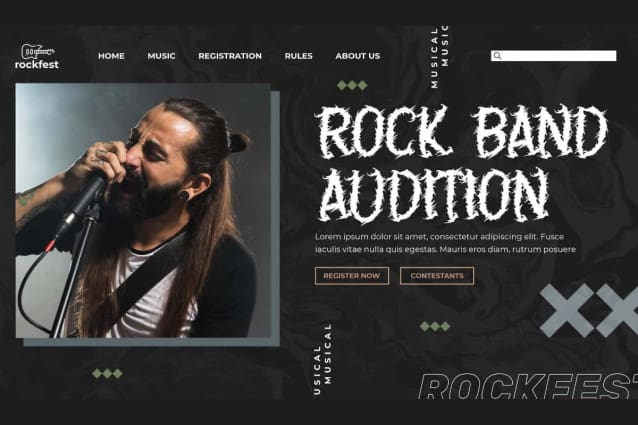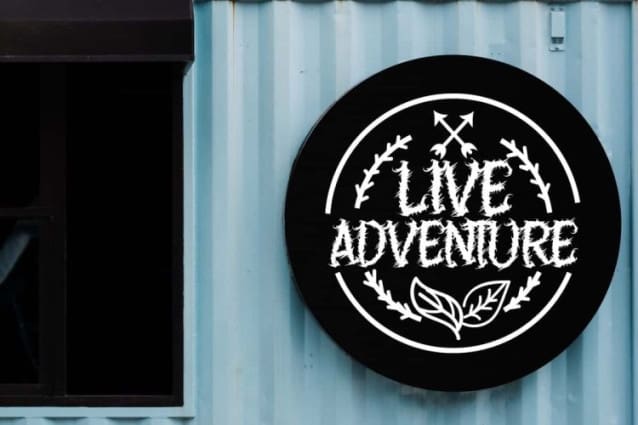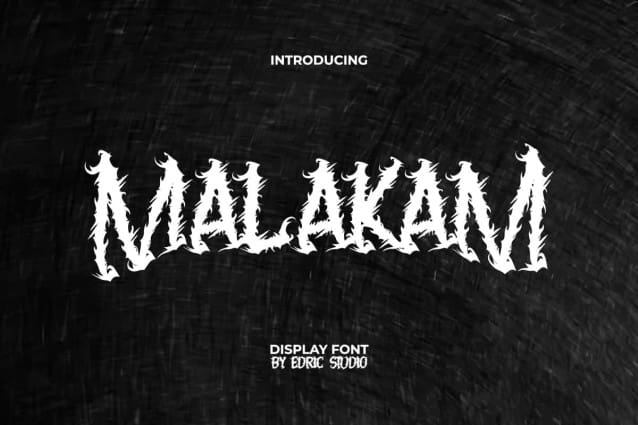
Malakam Display Font
Malakam Display Font is a terrifying horror display font and with the power of brutalism produces unique letter characters that are intricately decorated. Ideal for banner, billboard, brochure, headers, labels, logos, mockup, poster, screen print, signage, social media post, tags, template design, titles, websites, and anything else.
Malakam Display Font includes a complete basic set in ALL CAPS for both Uppercase and Lowercase letters, Numbers, Punctuation, Symbols, and Alternates. With creatively crafted characters creating perfect complexity and a suitable choice for projects that demand a strong and visually appealing presence, such as accessories, bands metal, cafes, clothing brand, fashion, film, games, graphic design, Halloween project, music, etc.